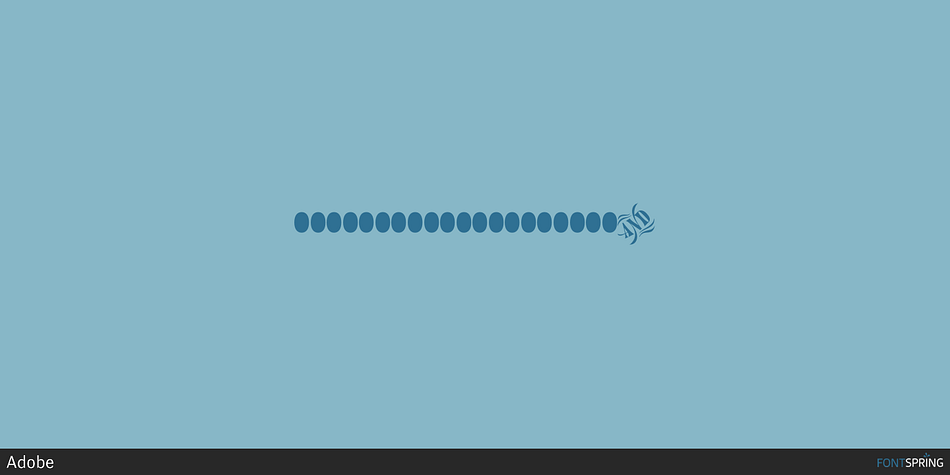
Adobe® Wood Type® Std is a dingbat font published by Adobe.
Barbara Lind and Joy Redick designed Adobe Wood Type Ornaments 1 and 2 in 1990 and 1991 for use with the Adobe Originals wood types. These sets of typographical ornaments are based on the unusual and intricate designs originally made in wood for use as eye-catching display work in the nineteenth-century. Adobe Wood Type Ornaments also work well with a variety of other typefaces.